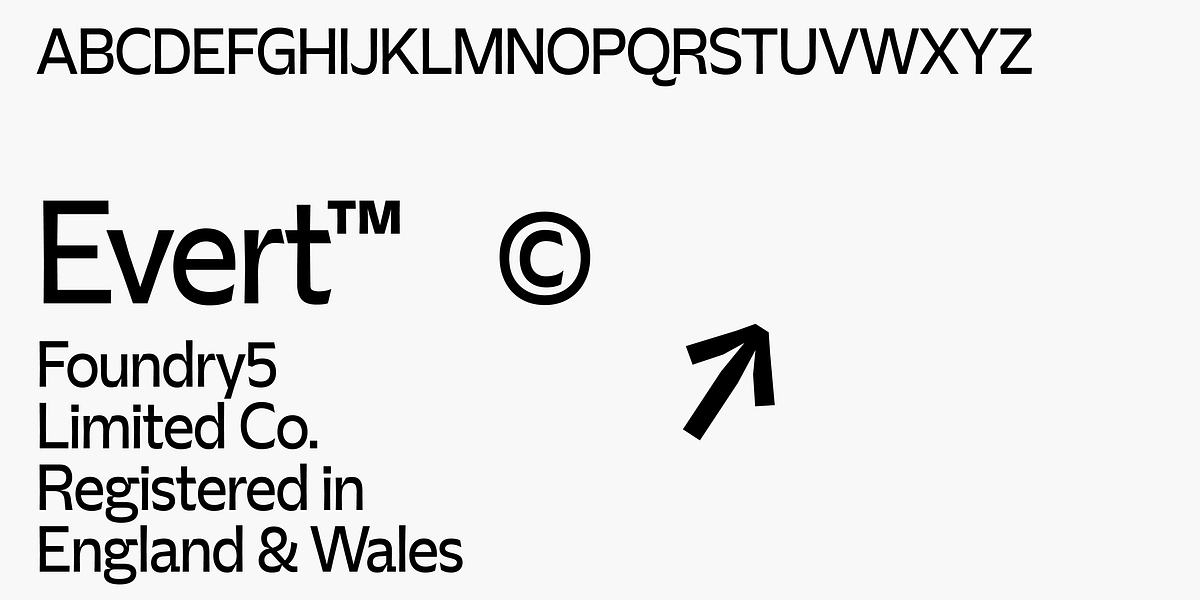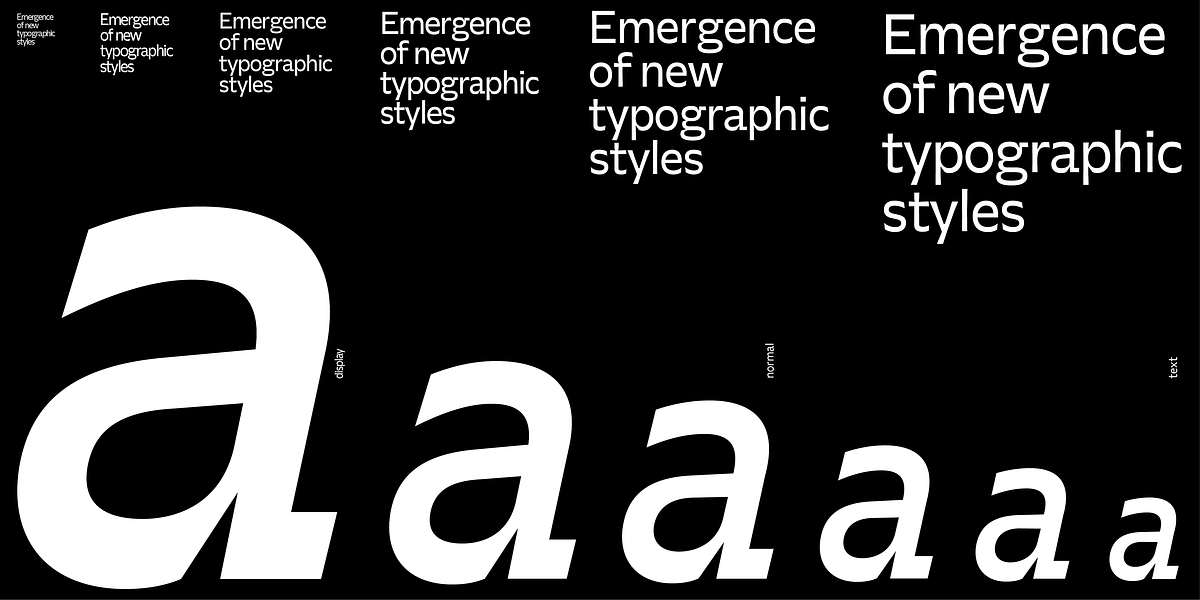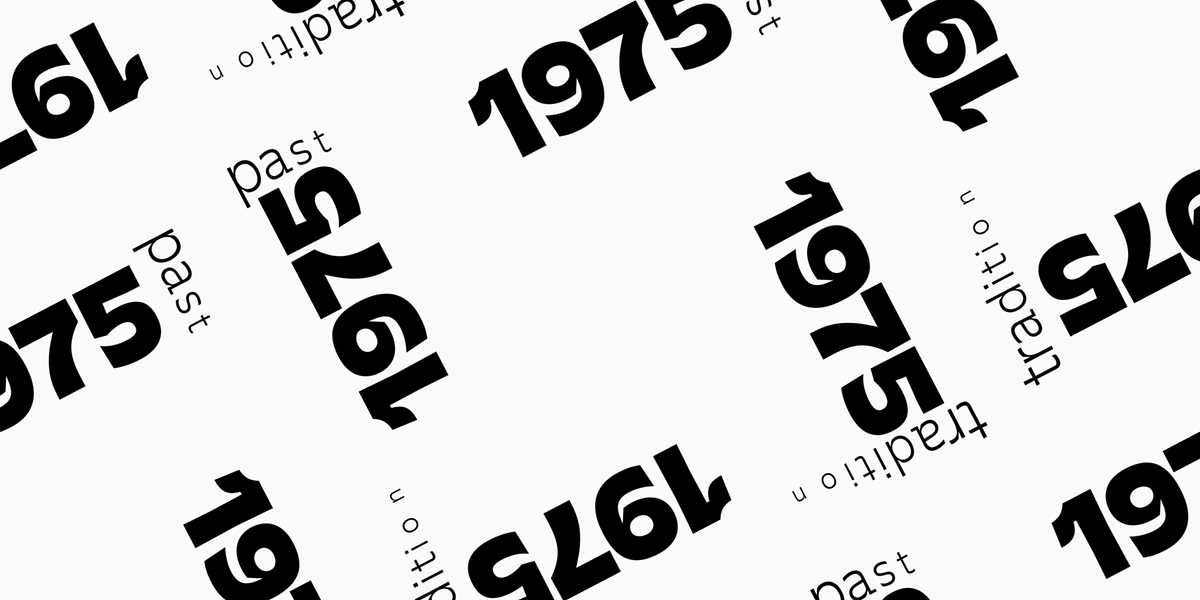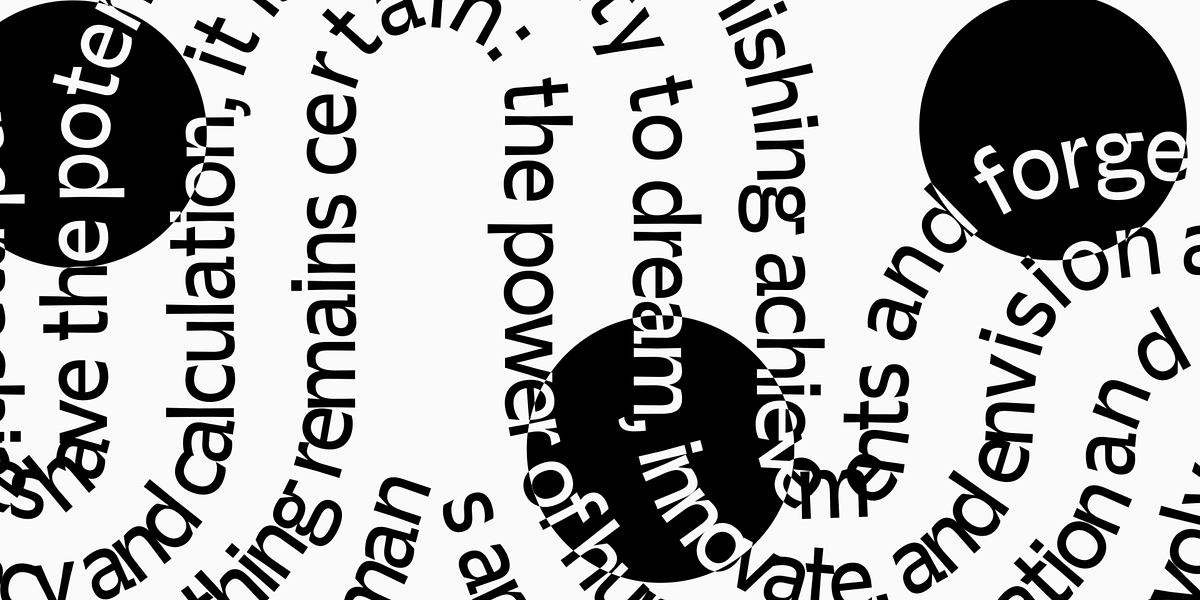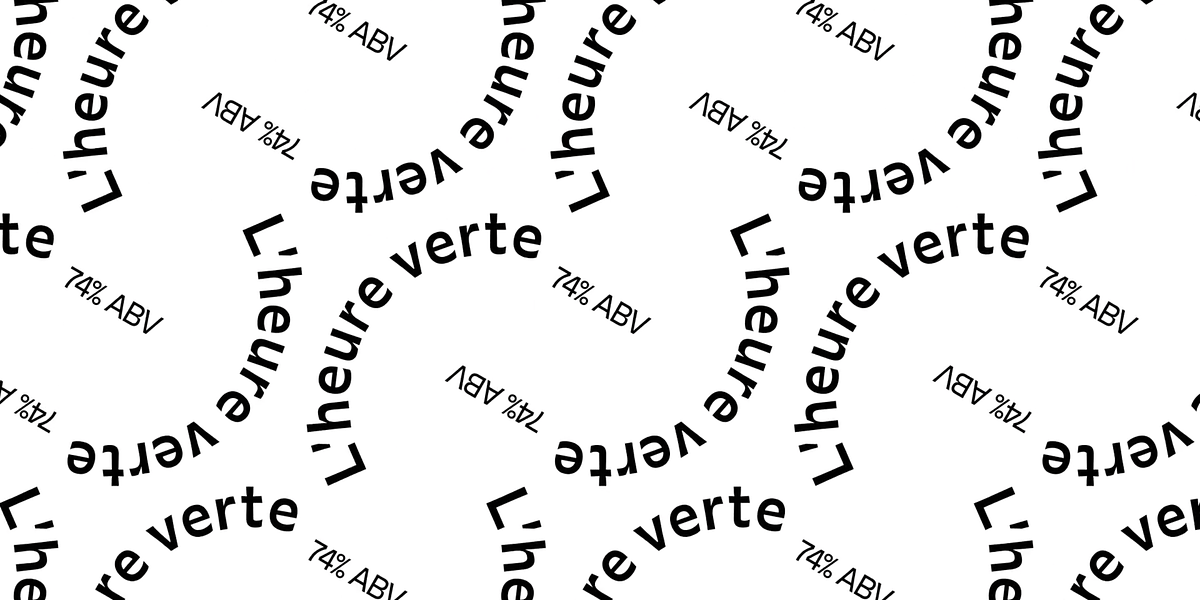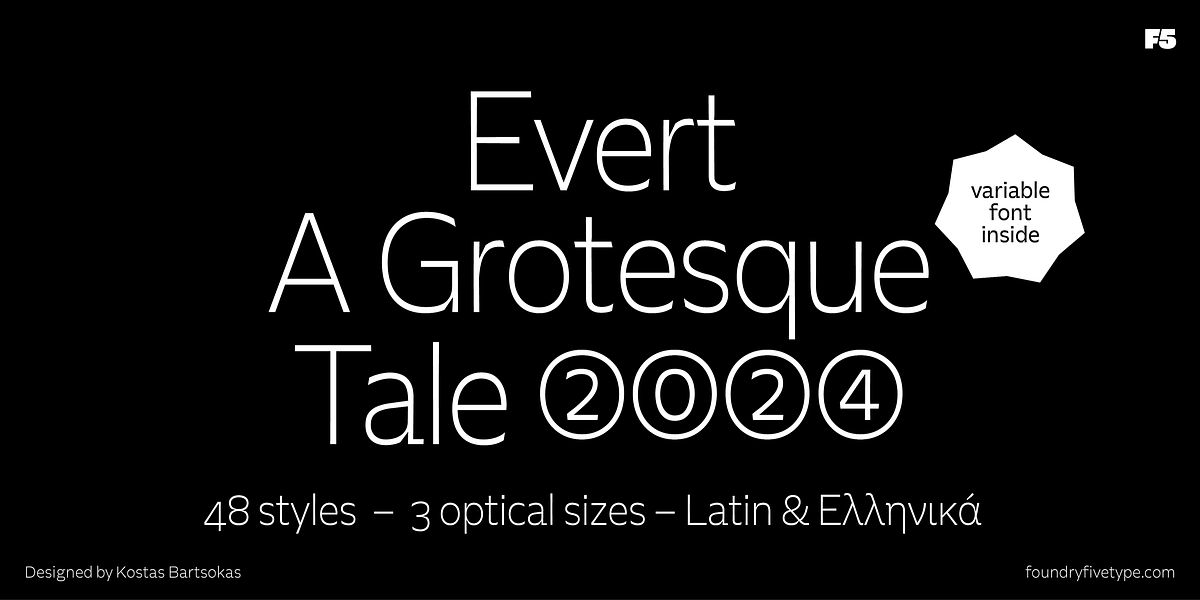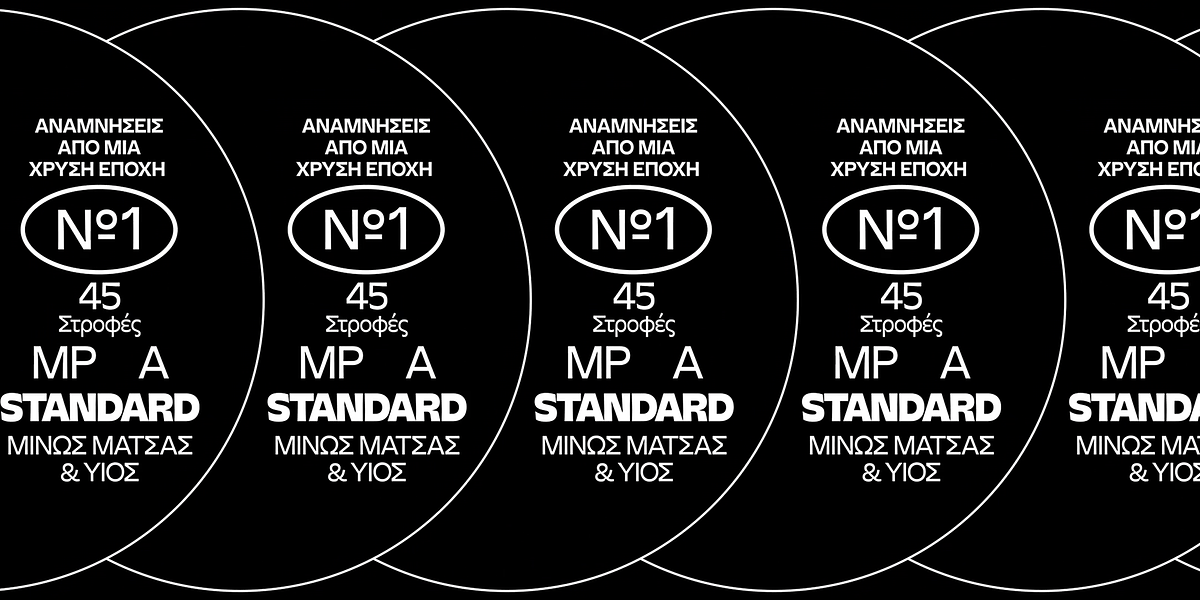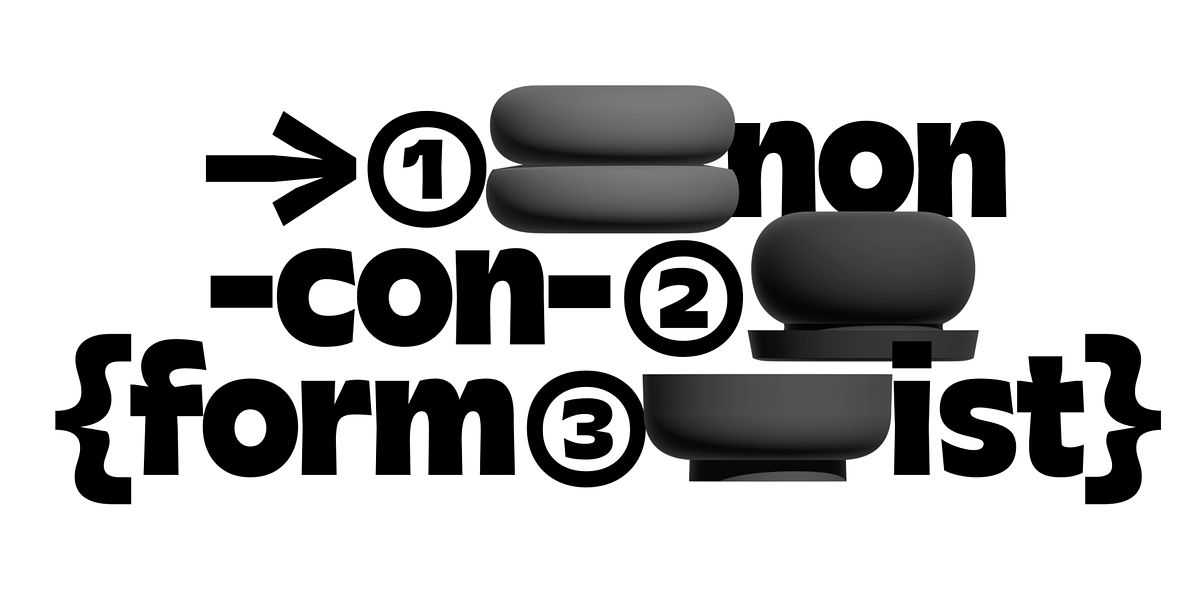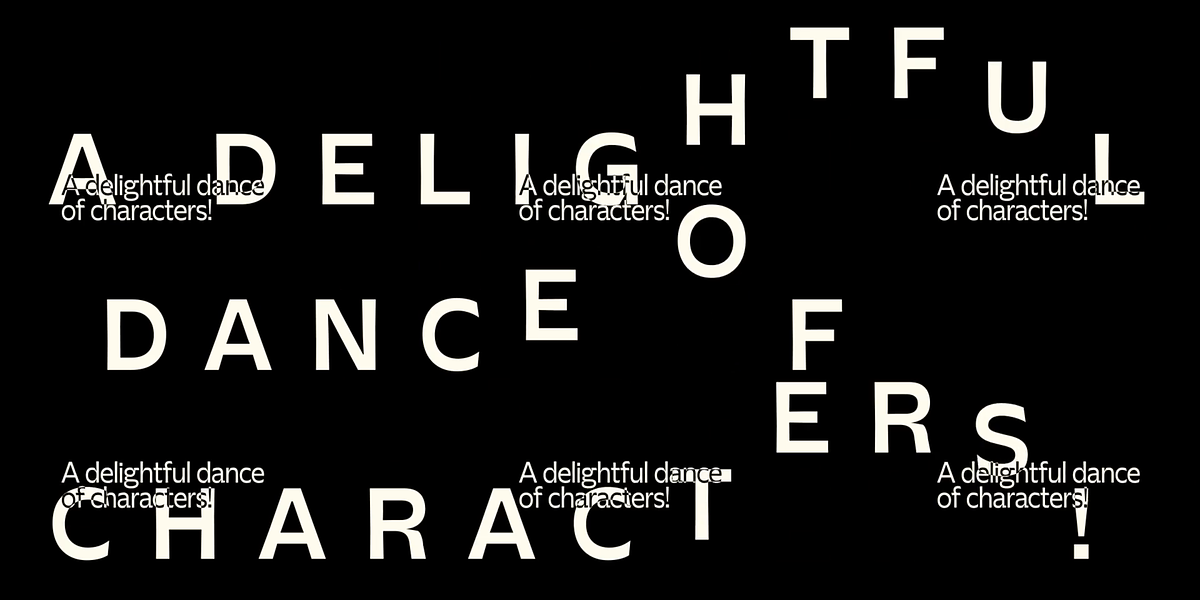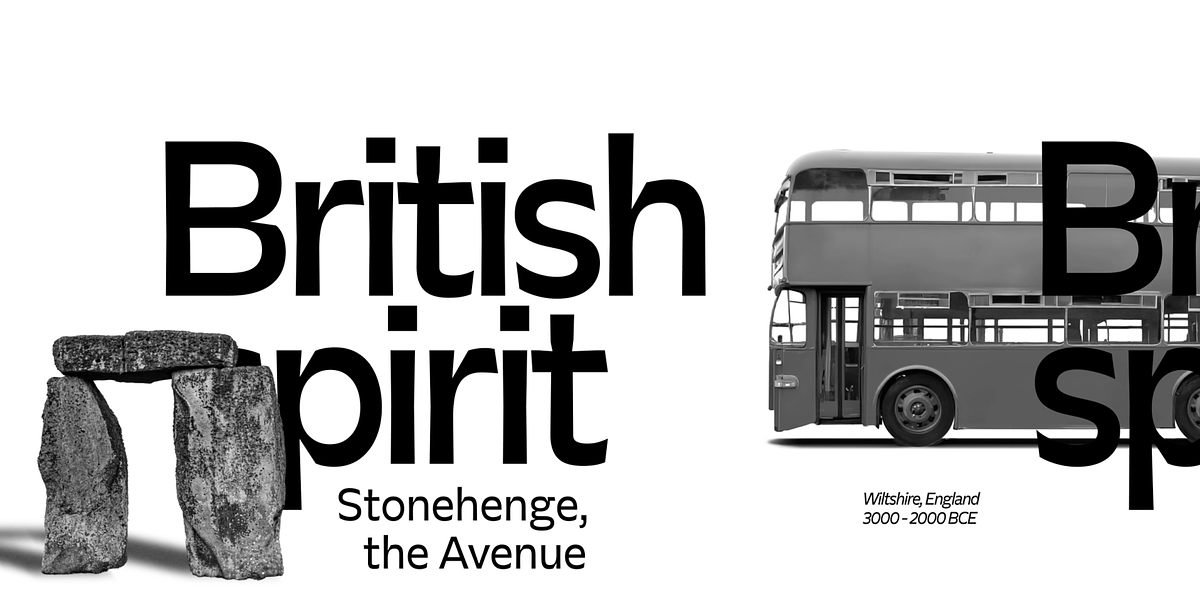
Evert Greek
Evert is a grotesque sans-serif typeface that blends classic influences with modern sensibilities. Inspired by typefaces like Grotesque No.1 and Antique Olive, Evert exhibits both subtle rigidity and humanistic elegance. It is designed for versatility, offering styles suitable for both lengthy paragraphs and eye-catching displays. The inclusion of features like localized forms, old-style numerals, and discretionary ligatures further enhance its expressive capabilities.